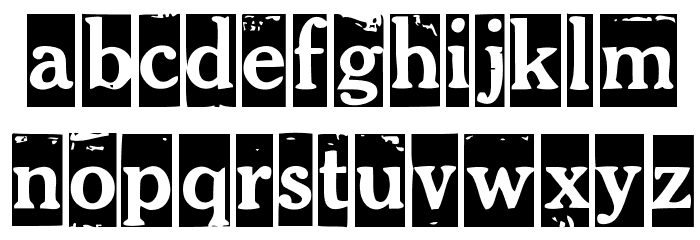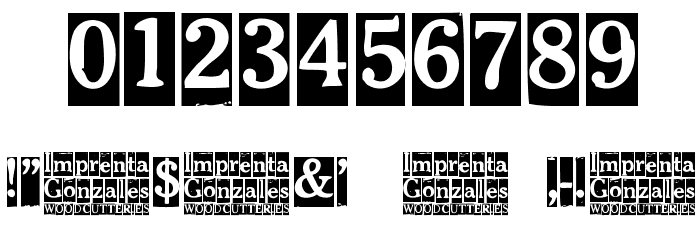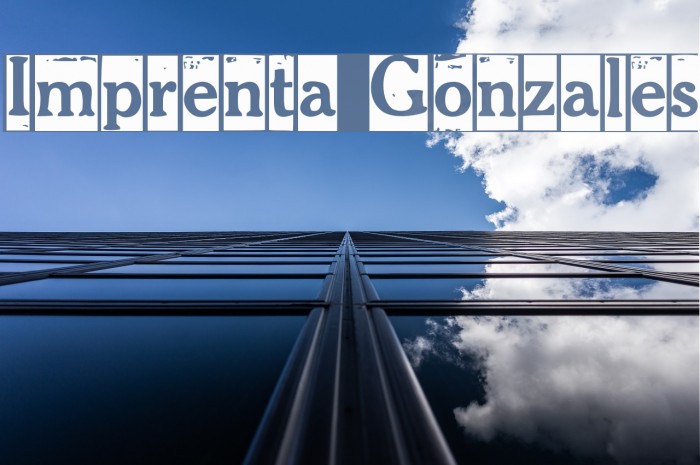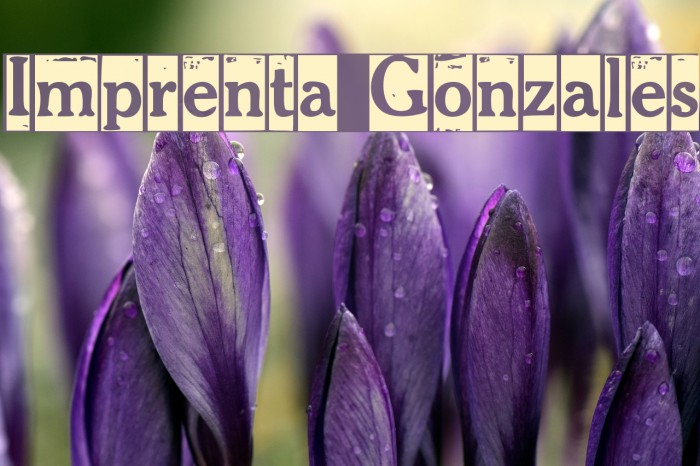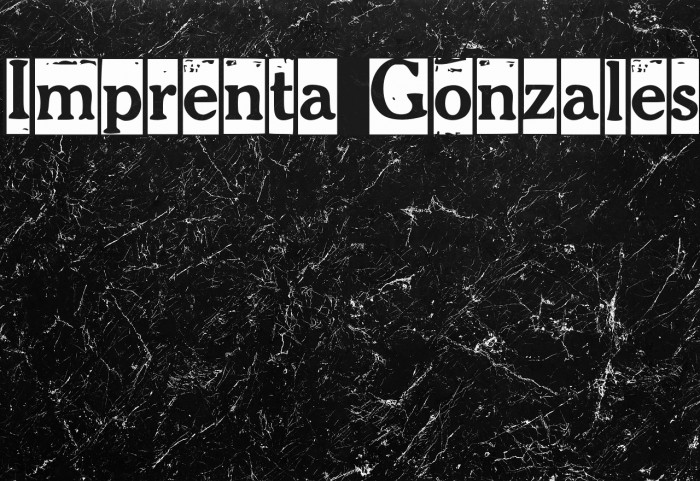
Imprenta Gonzales Font
This font features a bold, decorative style with a vintage flair, characterized by its high contrast between thick and thin strokes. The uppercase letters are particularly striking, with serifs that add a touch of elegance and a slightly distressed texture that gives it an aged, classic appearance. The lowercase letters maintain the same decorative style, ensuring consistency across the typeface. The numerals are clear and bold, making them stand out effectively. Special characters are included, maintaining the same stylistic elements, which makes this font versatile for various design needs.
A bold, decorative font with a vintage, high-contrast style and elegant serifs.
- Proposed Projects: Ideal for vintage-themed posters, branding, packaging, and any project that requires a classic, decorative touch.
- Overall Style: Vintage